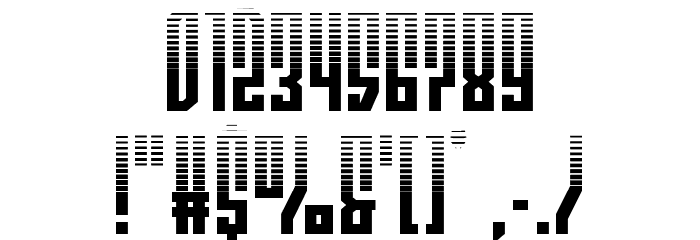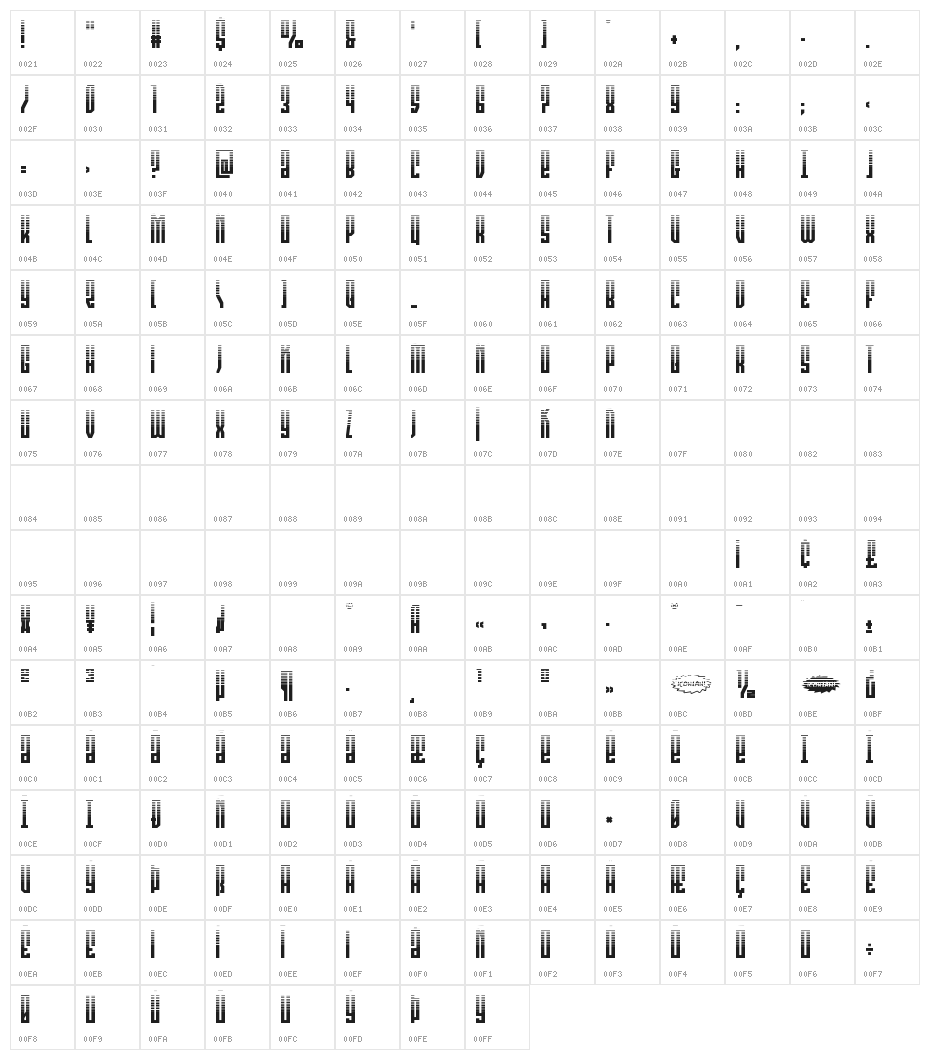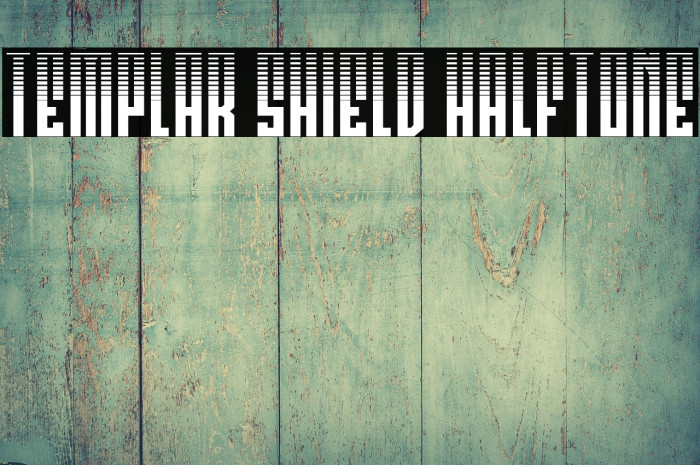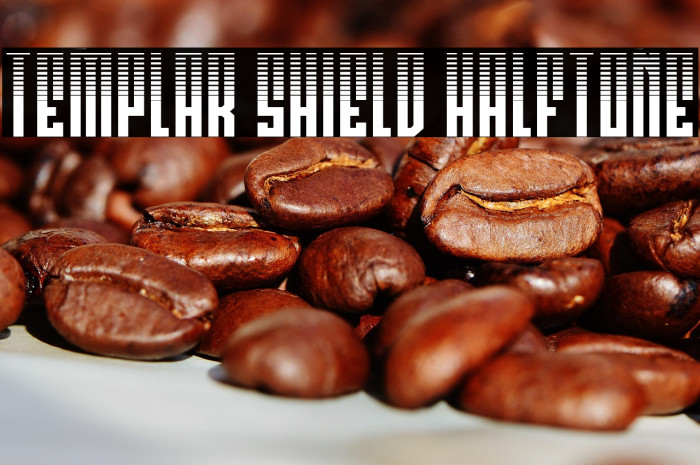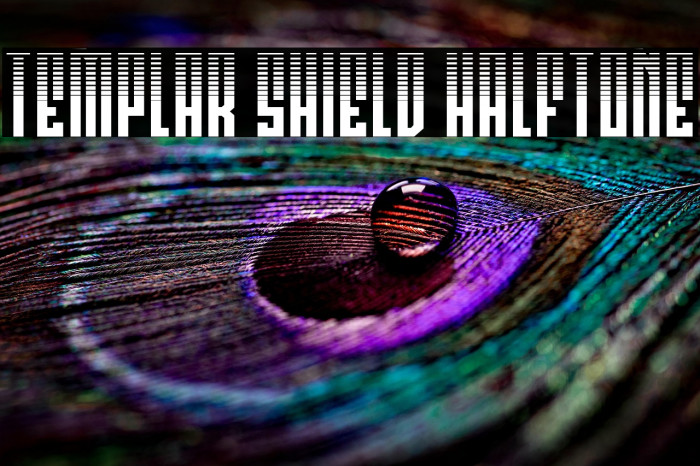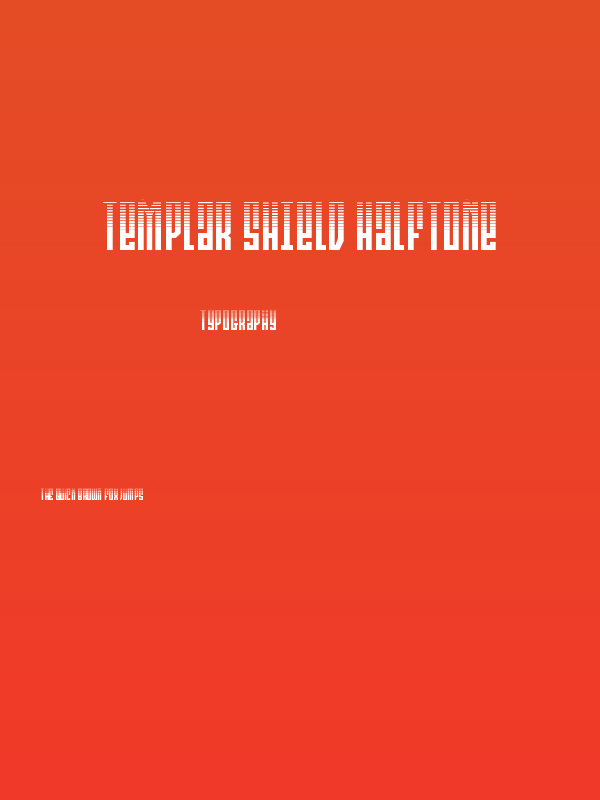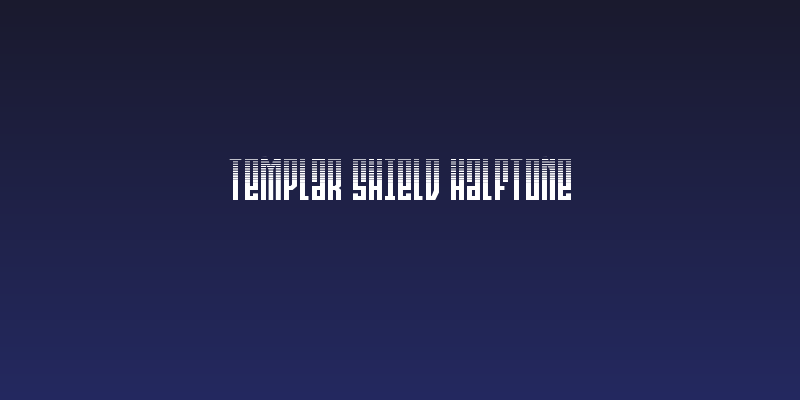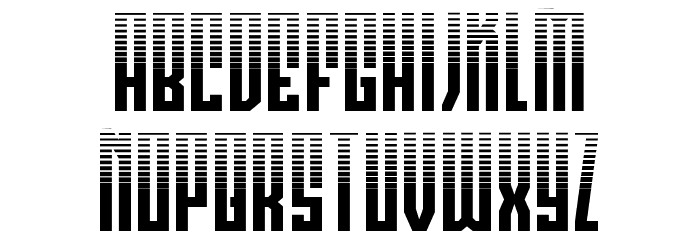
Templar Shield Halftone Font
Templar Shield Halftone Description
This font features a bold, geometric design with a halftone effect that creates a striking visual impact. The characters are constructed with a series of horizontal lines that vary in thickness, giving a sense of depth and texture. The uppercase letters are particularly prominent, with sharp angles and a modern, futuristic aesthetic. The numbers and special characters maintain this consistent style, making the font versatile for various design needs. Its unique appearance makes it ideal for projects that require a strong, eye-catching typeface.